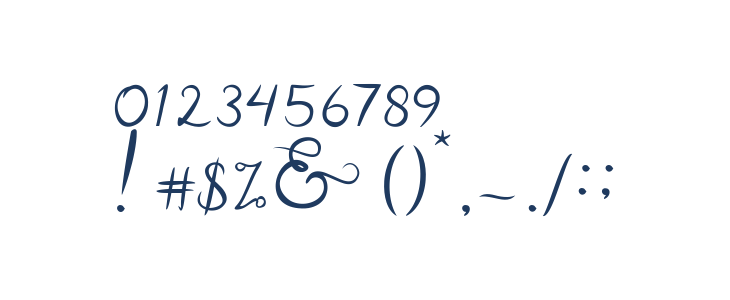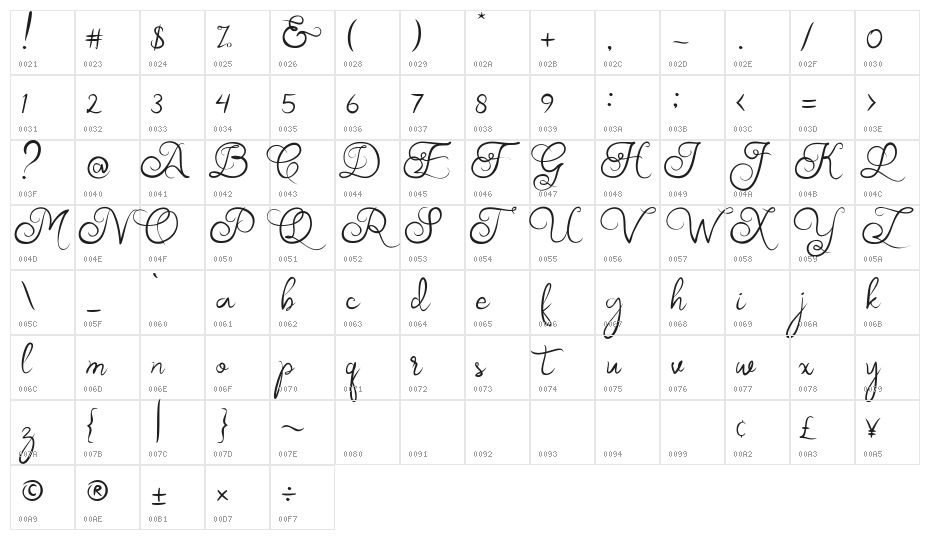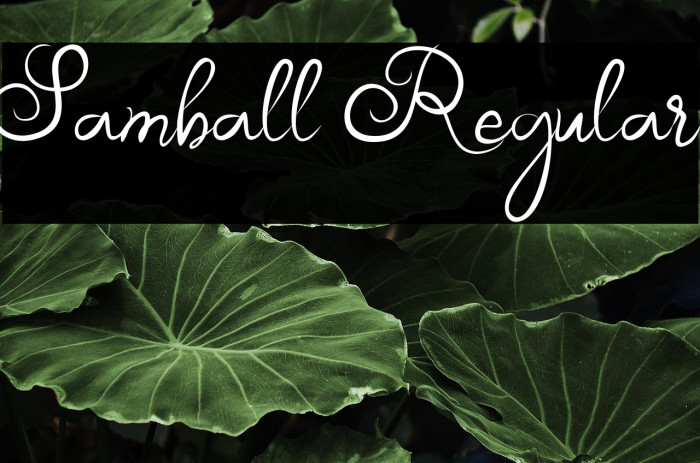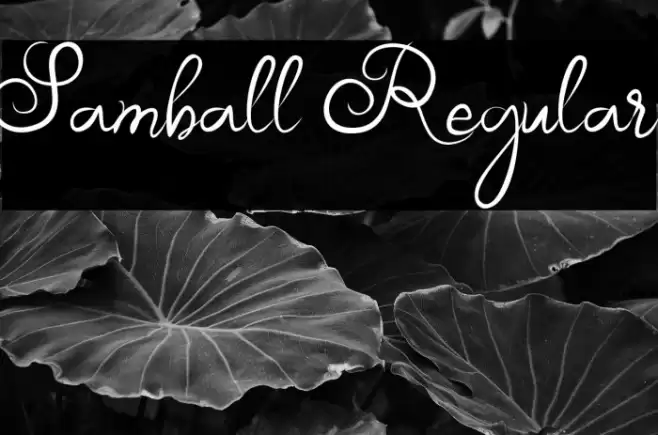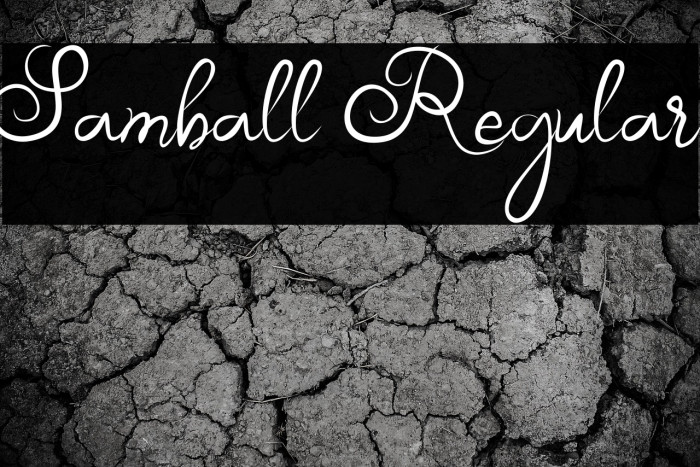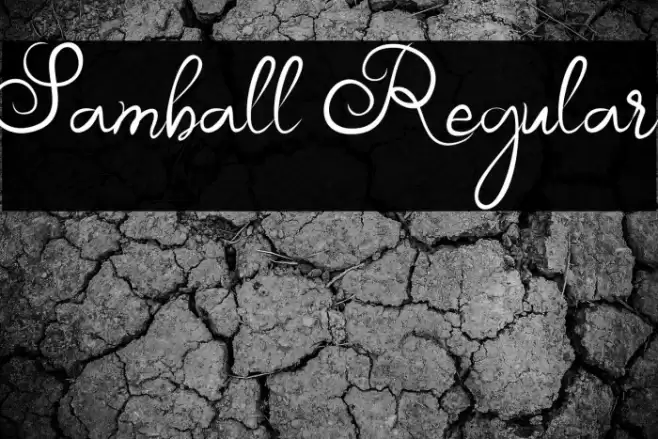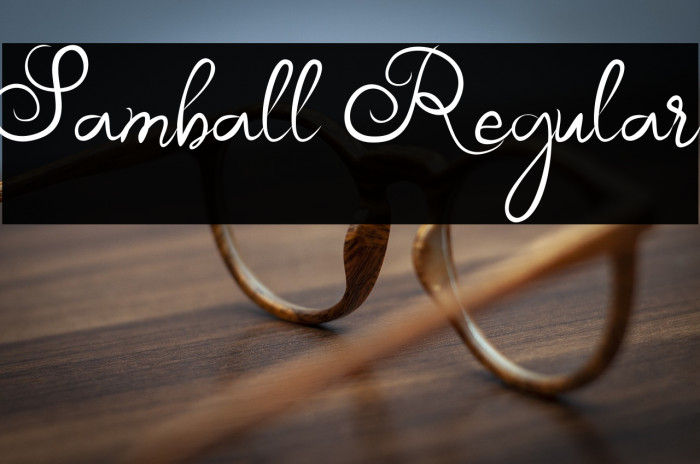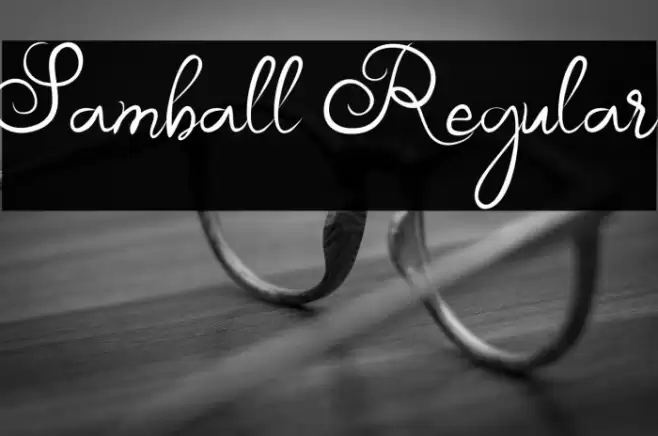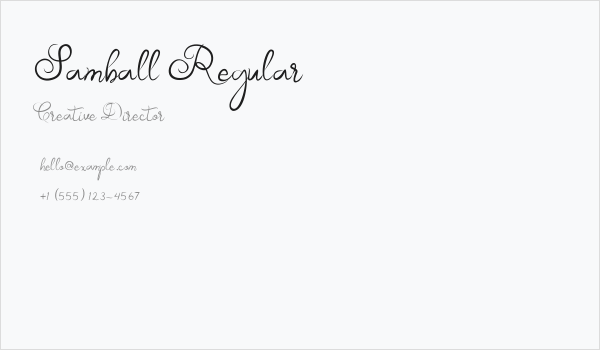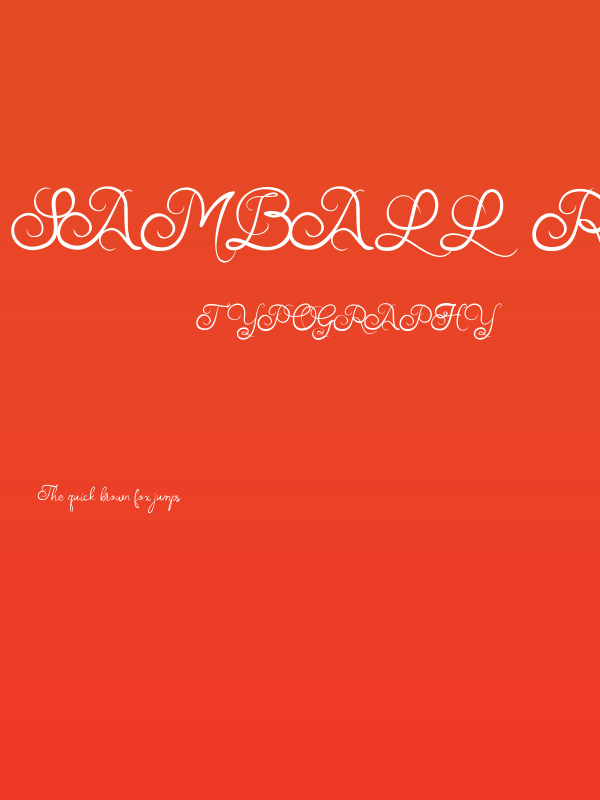
Samball Regular Font
Samball Regular Description
This font exhibits a flowing, elegant script style with intricate loops and flourishes, giving it a sophisticated and artistic appearance. The uppercase letters are particularly ornate, featuring elaborate curls and swashes that extend beyond the baseline and cap height, creating a sense of movement and grace. The lowercase letters maintain a consistent style, with smooth, connected strokes that enhance readability while preserving the decorative nature. Numerals and special characters are designed to complement the overall aesthetic, maintaining the same level of detail and elegance. This font is ideal for projects that require a touch of luxury and refinement, such as wedding invitations, high-end branding, or artistic designs.
| Use Case | Logos, Invitations, Artistic designs |
| Proposed Projects | Wedding invitations, luxury branding, artistic designs, elegant stationery. |